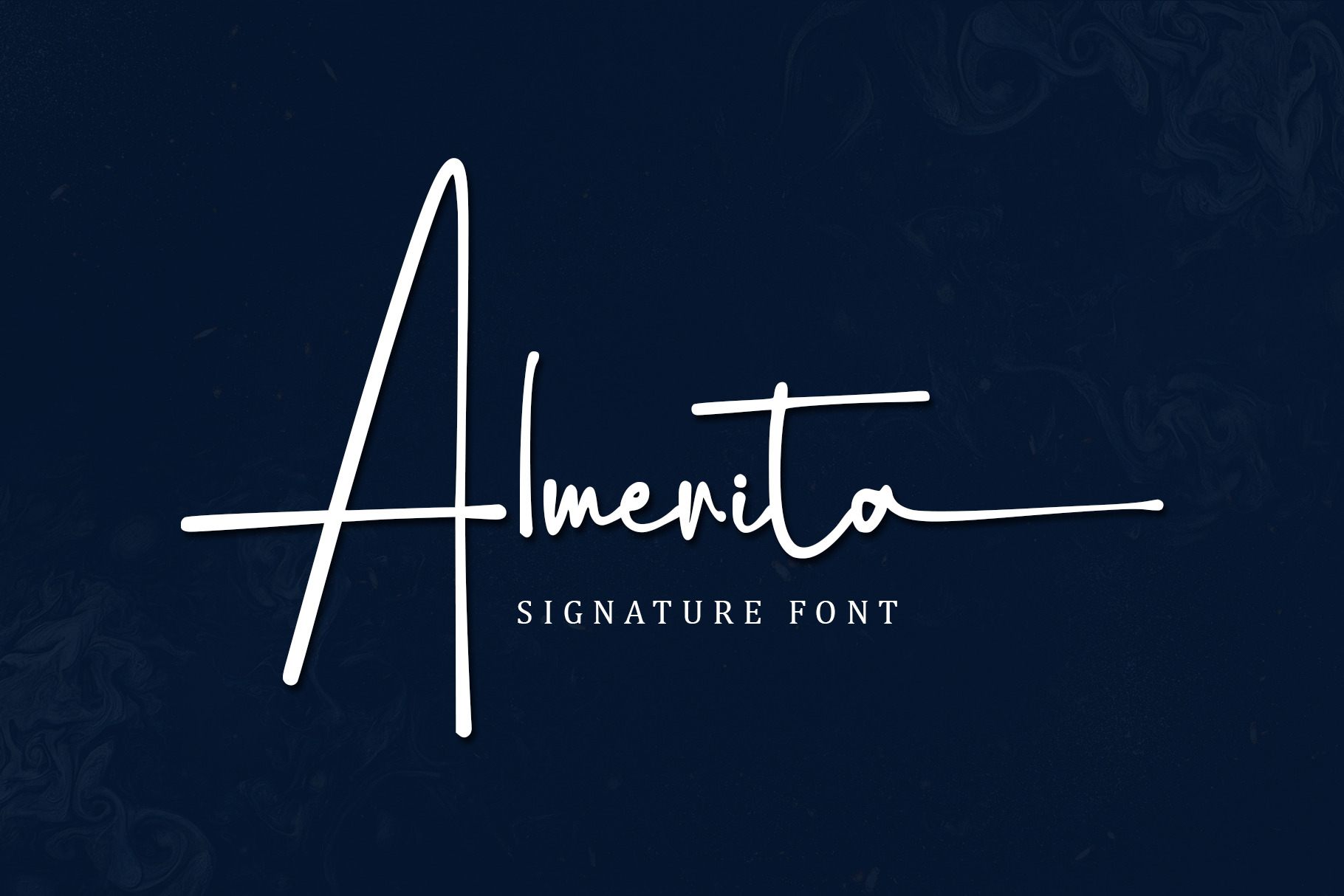
Almerita - Signature Font
Almerita is a sweet and delicate handwritten font. Dainty and joyful, this font will be ideal for writing wedding invitations, cards, or any other design that may need a romantic, personalized touch!